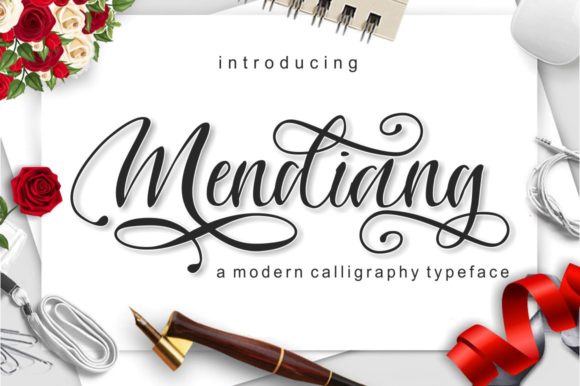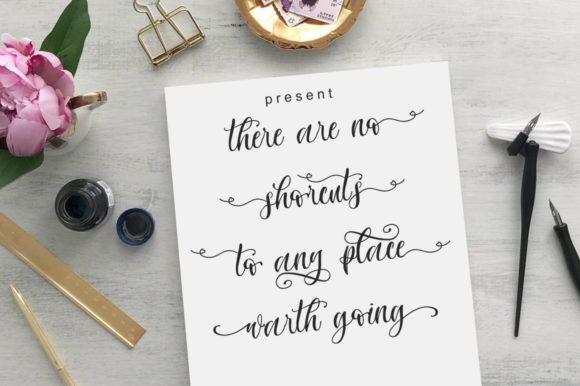
Mendiang Font
About Mendiang Font
Mendiang is a truly exquisite handwritten font that embodies elegance and fluidity in every stroke. With its PUA encoding, accessing its diverse range of glyphs and swashes is a breeze, allowing you to effortlessly add intricate details to your designs. This font seamlessly marries classic calligraphic elements with a modern and refreshing twist, resulting in a typeface that’s versatile and timeless.
The flowing nature of Mendiang’s letters imparts a sense of movement and grace, making it a perfect choice for projects that require a touch of sophistication. Its delicate curves and meticulously crafted details create a harmonious balance between traditional and contemporary design aesthetics. Whether you’re working on wedding invitations, thank you cards, quotes, logos, or any other project that demands a handwritten touch, Mendiang can easily become the heart of your creative endeavor.
For wedding invitations, Mendiang’s elegant script evokes a sense of romance and beauty. It can gracefully convey the sentiment of love and celebration that surrounds such special occasions. Its varied glyphs and swashes provide you with the creative freedom to customize and personalize your invitations, ensuring that each one feels unique and tailored to the couple’s style.
When it comes to branding, Mendiang adds a touch of refinement to your visual identity. Its flowing script can add a human touch to your logo, giving your brand a relatable and approachable quality. Whether you’re a boutique business or a professional service provider, Mendiang’s versatile style can adapt to various industries and niches.
Quotes and inspirational messages come alive with Mendiang’s elegant appearance. The font’s flowing lines can emphasize the emotions behind the words, creating a deeper connection with your audience. Its timeless charm adds a layer of authenticity to your quotes, making them resonate with readers on a personal level.
In the realm of logos and business cards, Mendiang’s unique flair stands out. Its elegant and flowing script can enhance the visual representation of your brand, making it memorable and distinctive. Whether you’re designing for a luxury brand, a fashion label, or an artisanal business, Mendiang’s versatility shines through.
Overall, Mendiang is a font that brings together the best of both worlds: classic calligraphy and contemporary design. Its elegant and flowing nature, combined with the convenience of PUA encoding, ensures that your projects exude sophistication and professionalism. With Mendiang, your designs will reach new heights, capturing the essence of beauty and grace that defines this remarkable font.